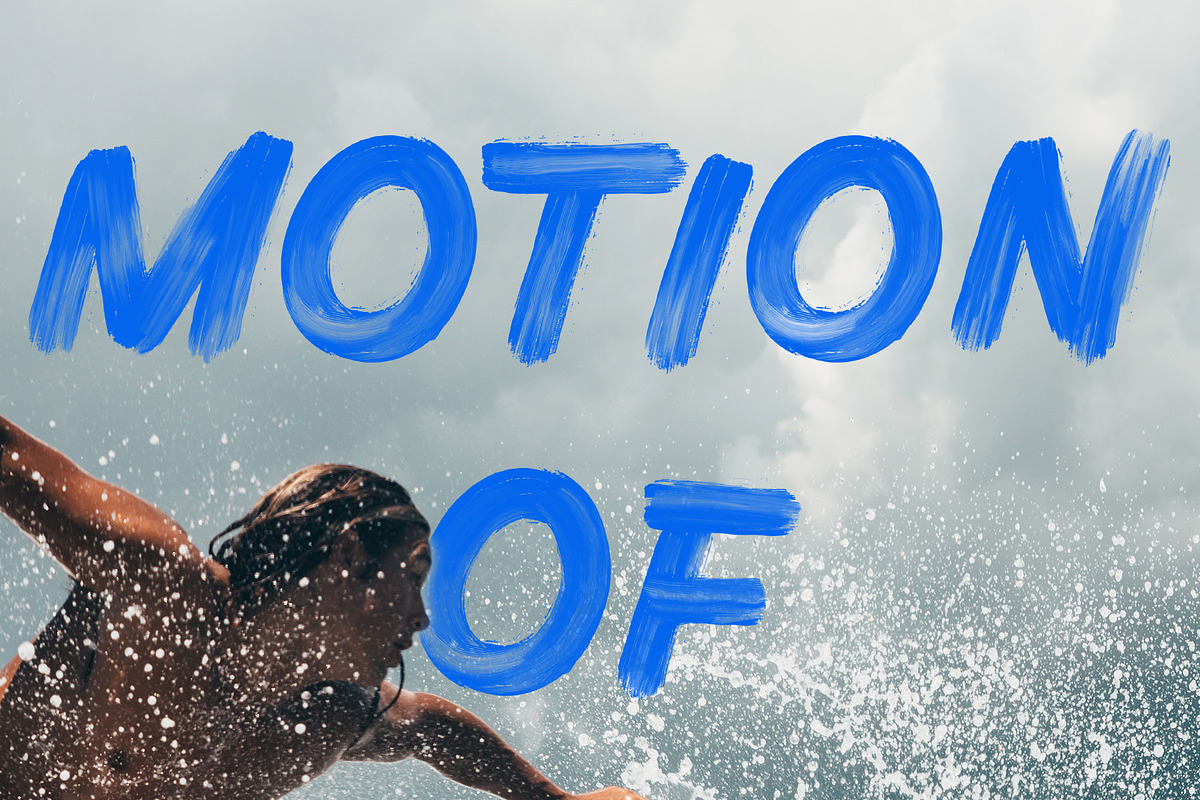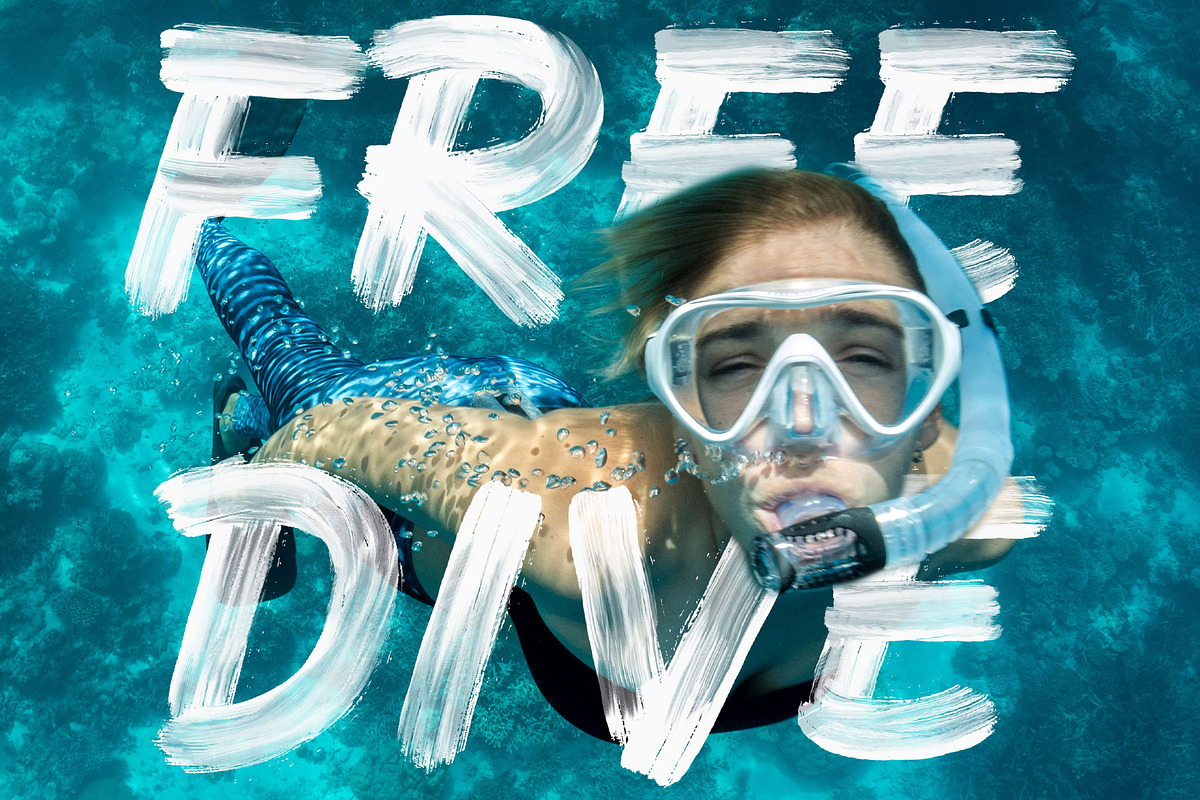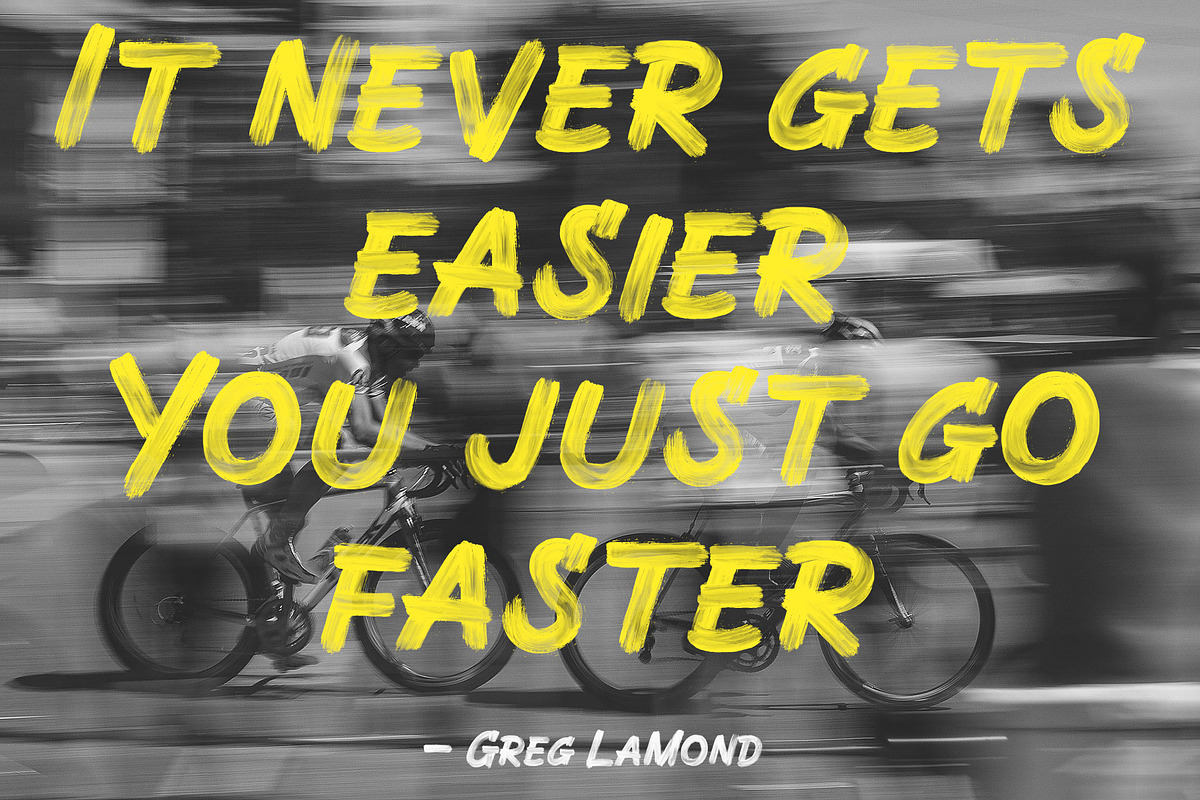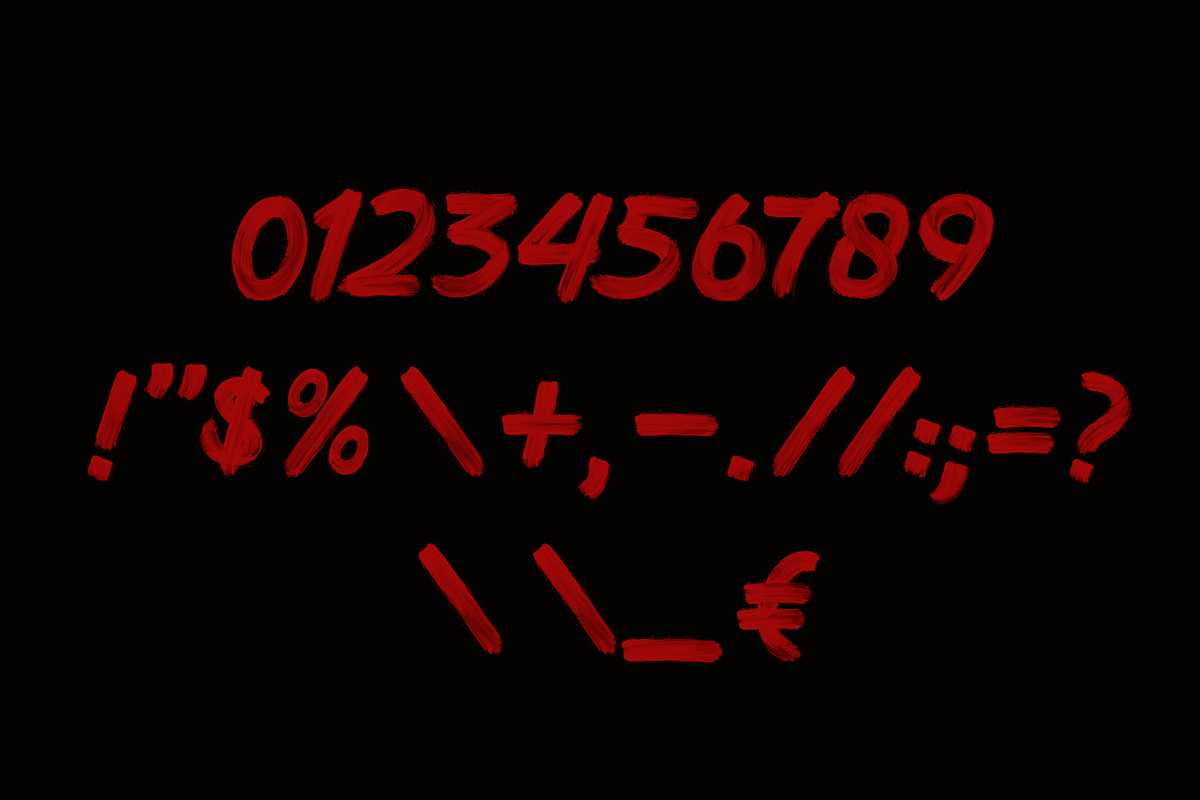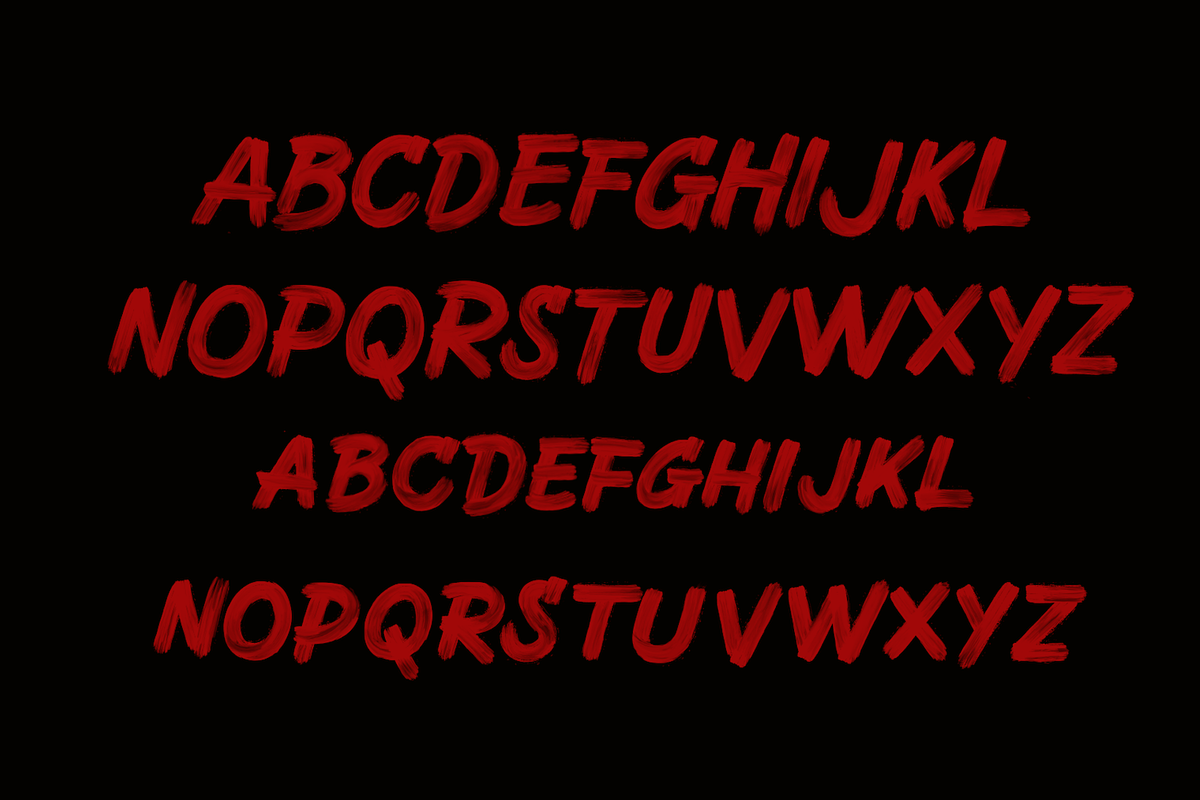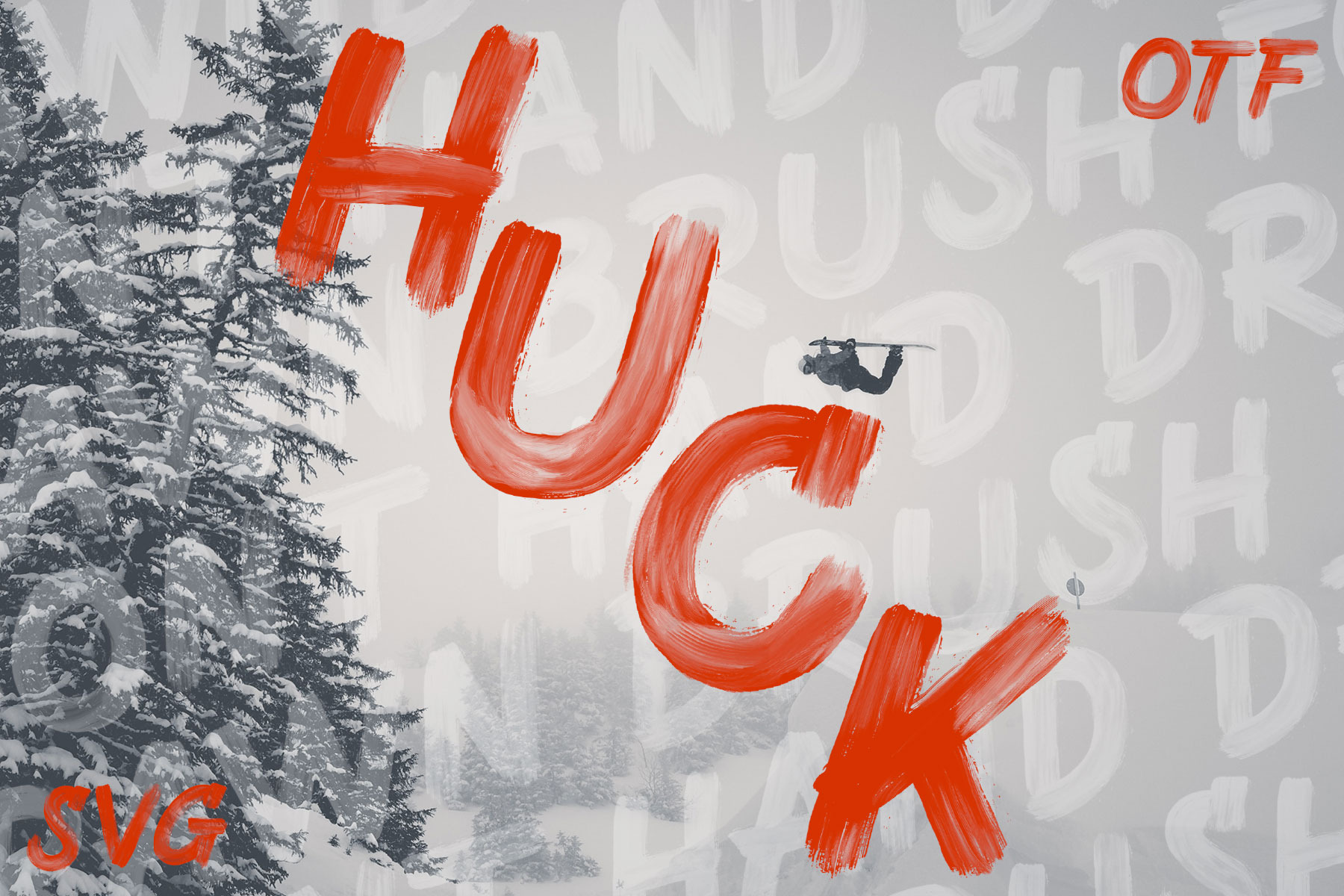
Huck - Handcrafted SVG Brush Font
Huck SVG + OTF is a new high energy hand brushed font that’s ready for anything. This SVG font features unique transparency and real brush strokes for a truly hand drawn look. It's an all-caps font with large and small capital characters.
Perfect for posters, headlines, social media posts, advertising, product packaging and much more. Very well suited for extreme sports and fitness related creative with it’s quick brushed highly legible characters.